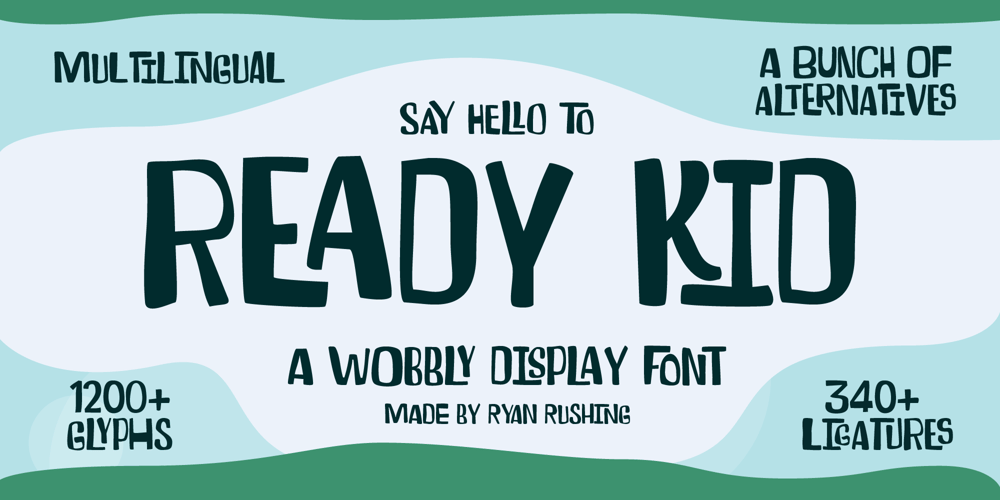
Ready Kid Font Family was designed by Ryan Rushing and published by Flying Fuzzball. Ready Kid contains 1 styles and family package options. Ready Kid is a versatile, funky display typeface that is inspired by freehand signpainting with a dose of childhood nostalgia. It’s perfect for children’s birthday party invitations, punk band marketing, or packaging for art supplies.There are six sets of stylistic alternatives, 340+ ligatures, and 1200+ glyphs that cover over 200 languages.